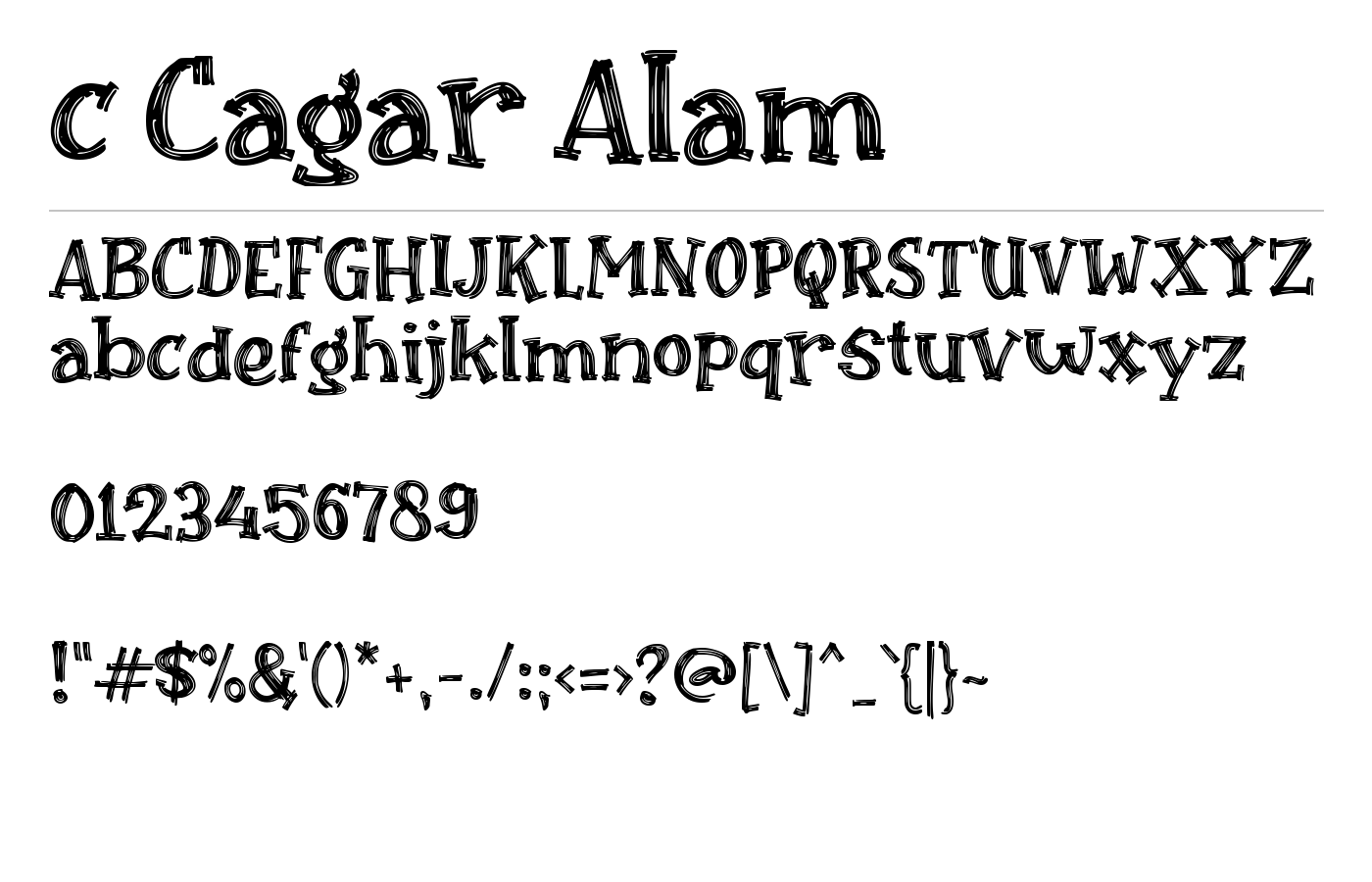
Cagar Alam is a playful, hand-drawn serif font with a slightly rough, sketch-like texture that gives it a casual and creative feel. Its uneven strokes and quirky letterforms make it perfect for fun, artistic projects, children’s books, or branding that wants to convey a friendly, approachable personality. This font works best in headlines and display uses where its unique style can shine and grab attention.
c Cagar Alam Font
About c Cagar Alam Font